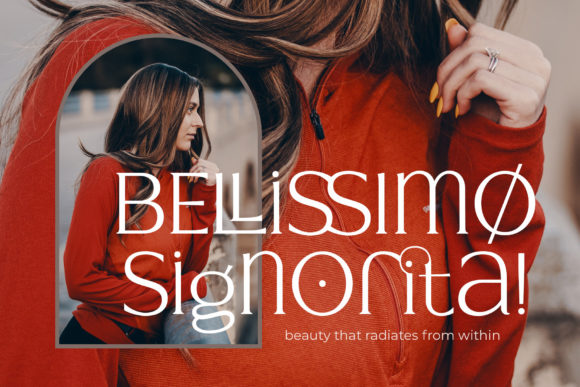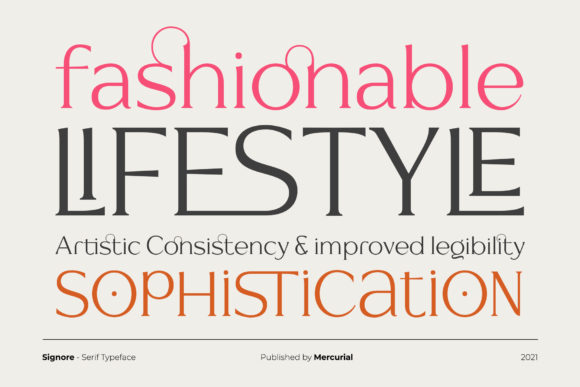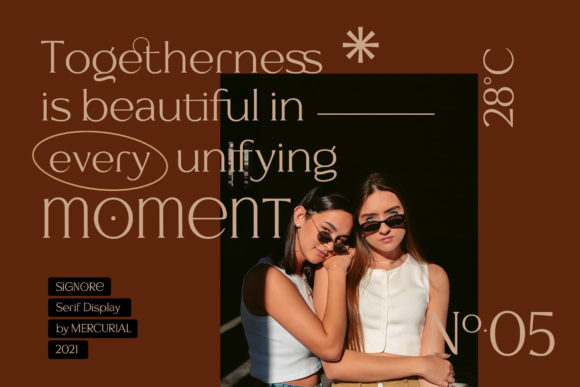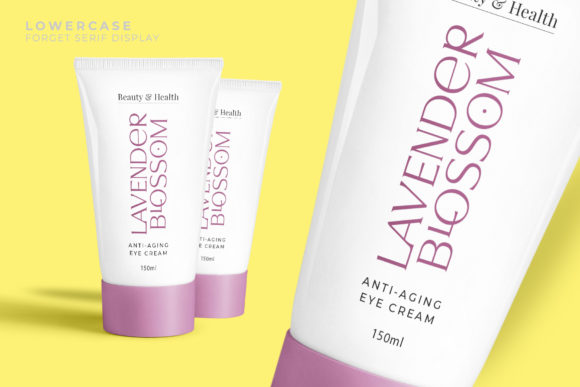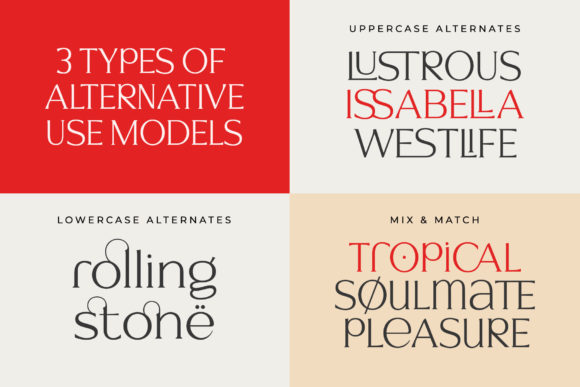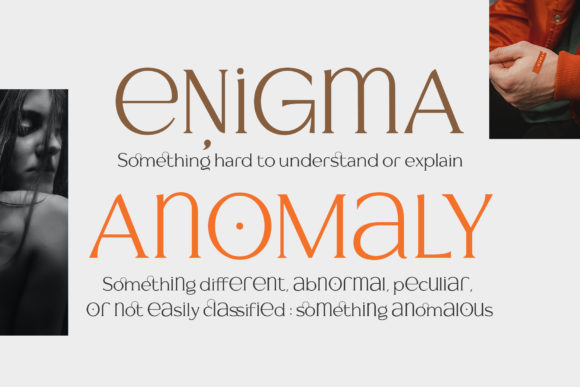
Introduction to Signore Font
Signore is a serif typeface made with the desire for the quality, elegant, classy font that you can use in all design needs.
Wrapped with a modern yet unique character with a style that can mix & match in 3 model variants Signore is ideal for design, logo design, blog graphics, style quotes, wedding stationery, art prints, additional design, packaging, social media, magazines, fashion, creative branding, editorial design, and web designing.
Key Features of Signore Font